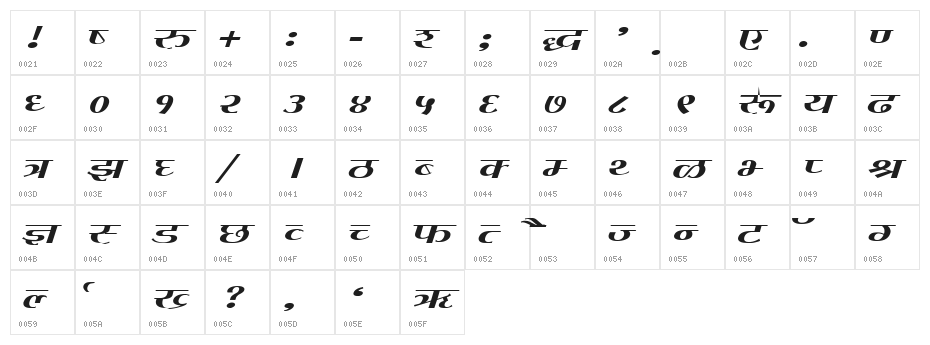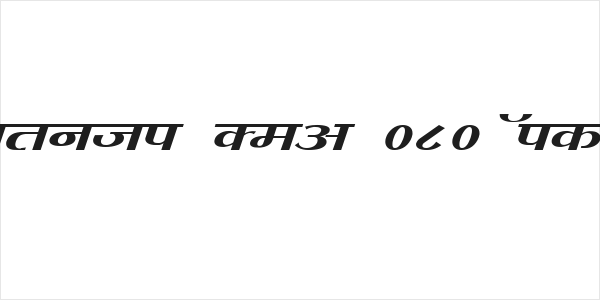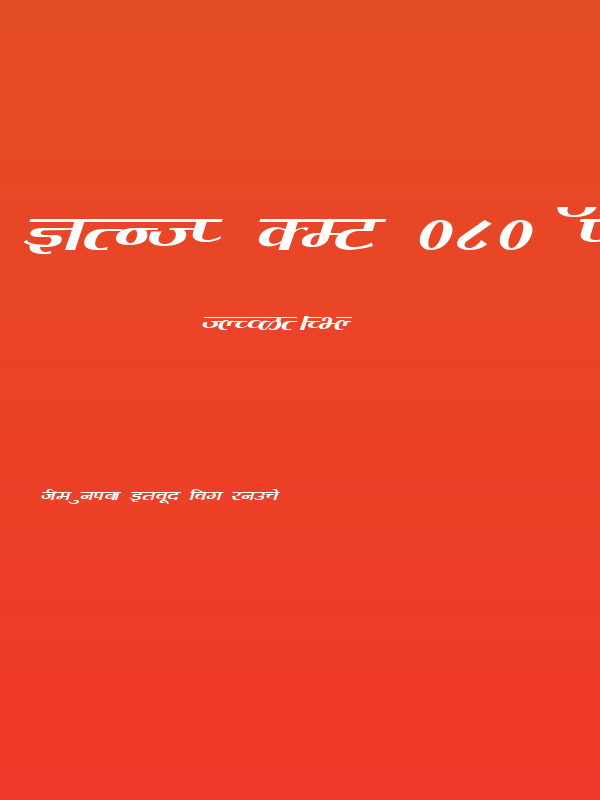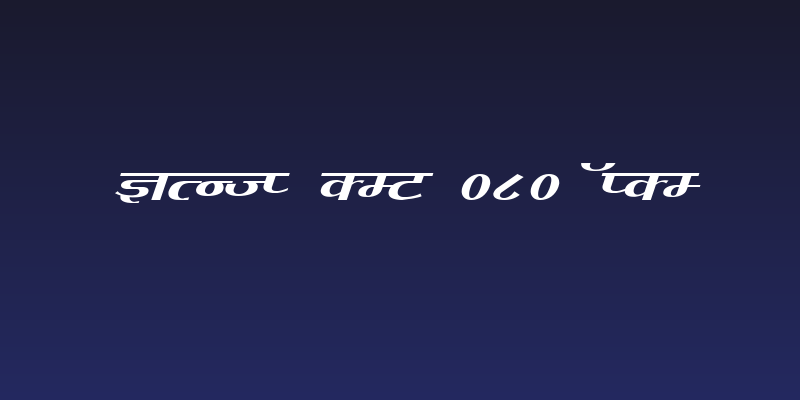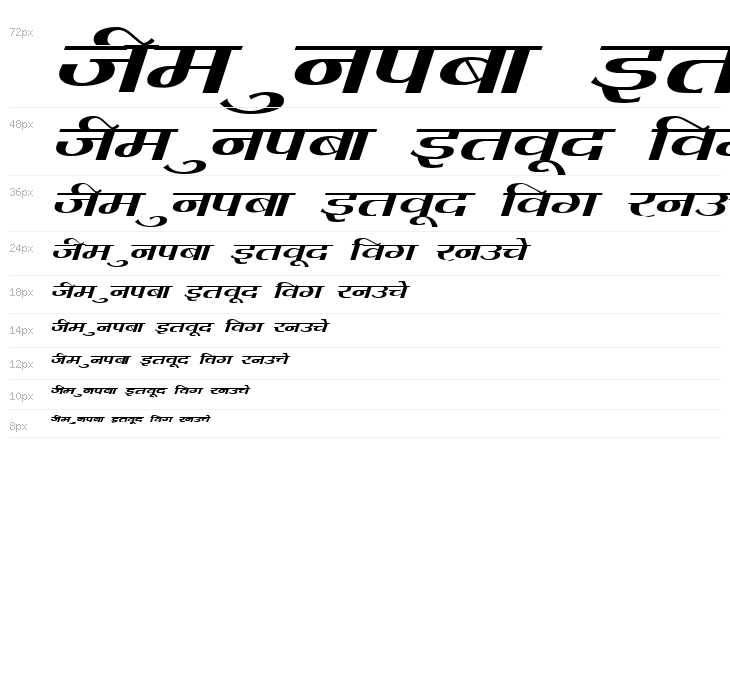
Kruti Dev 080 Wide Font
Kruti Dev 080 Wide Description
This font is a bold and dynamic typeface with a distinct slant, giving it an italicized appearance. The characters are wide and have a strong presence, making them suitable for impactful designs. The strokes are thick, providing a high contrast that enhances readability and visual appeal. The font features a traditional script style, often used in Indian languages, with intricate curves and flourishes that add a decorative touch. Its unique style makes it stand out, ideal for projects that require a cultural or traditional aesthetic.
| Overall Style | Traditional, Decorative |
| Use Case | Headlines, Logos, Decorative text |
| Proposed Projects | Ideal for cultural posters, traditional event invitations, and decorative signage. |